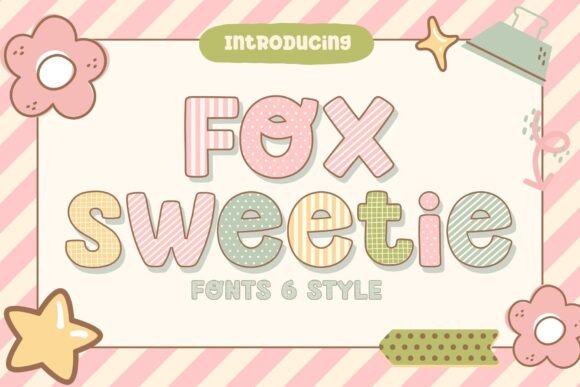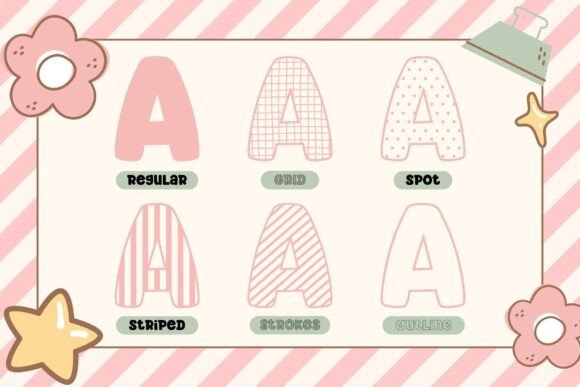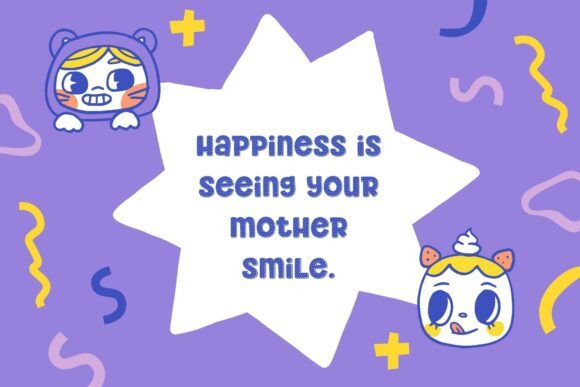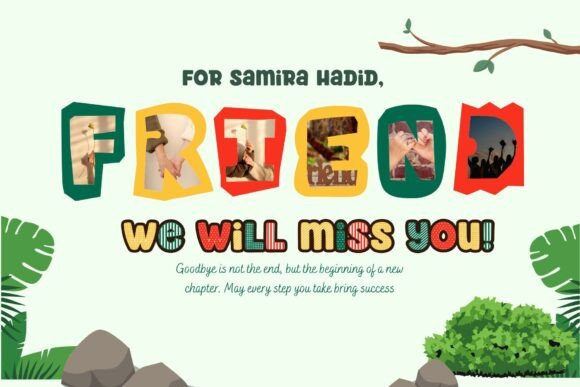
Fox Sweetie Font: Cute Display Font for Cricut & Playful DIY Designs
About the Fox Sweetie Font
Make a bold statement with Fox Sweetie Font, a powerful and memorable font. Fox Sweetie is a 6 style font that cool cute and playful display font that adds a captivating and energetic touch to your designs. Perfect for use in publications, menus, logos, business cards, or even printed on t-shirts, these fonts exude uniqueness. Its main feature is its vibrant and expressive design, allowing you to create attention-grabbing headlines, t-shirt typography, banners, product labels, and more
Fox Sweetie’s playful energy makes it ideal for headlines, short slogans, and branding projects targeting a young, vibrant audience. It excels in applications like posters, packaging for children’s products, and social media graphics. However, its decorative nature makes it less suitable for body text or UI elements requiring high readability.
For optimal visual balance, pair Fox Sweetie with a clean sans-serif like Open Sans for body copy or a more structured serif like Merriweather for a touch of sophistication. Consider a geometric sans-serif like Montserrat for a modern contrast, or a playful script font like Pacifico for an even more whimsical feel, depending on the desired level of energy.
The overall personality is undeniably youthful and spirited. It’s best suited for brands that want to convey fun, approachability, and a sense of lightheartedness.
Fox Sweetie Font Usage Examples
Fox Sweetie Font Example